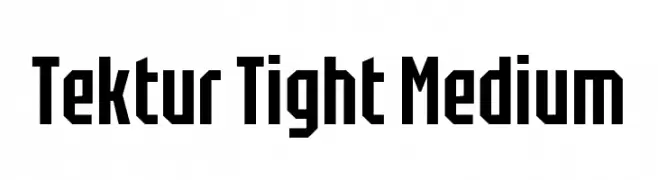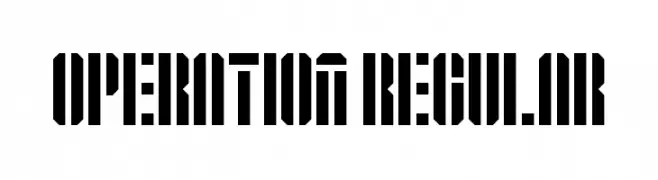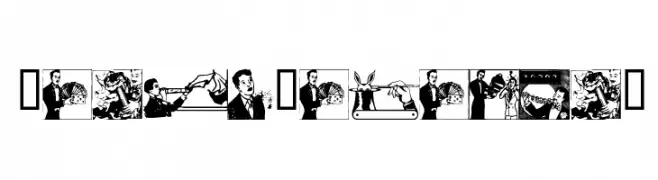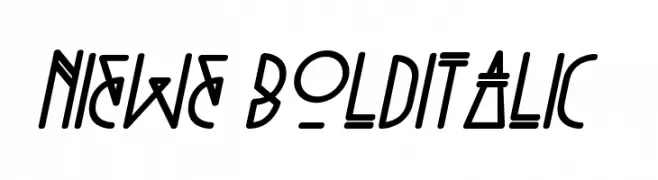
A bold, geometric font with a modern, industrial style and tight spacing.
A bold, geometric font with an industrial, stencil-like design.
A playful, hand-drawn font with a whimsical and artistic style.
A bold, distressed font with a vintage, grunge aesthetic.
Comic-style dingbat font with vintage magic illustrations.
A bold, geometric font with a 3D zigzag pattern, offering a modern and dynamic look.
A bold, italicized font with geometric and angular design elements.
A futuristic, italicized outline font with angular and geometric design.
A decorative gothic font with intricate, sharp-edged letterforms.